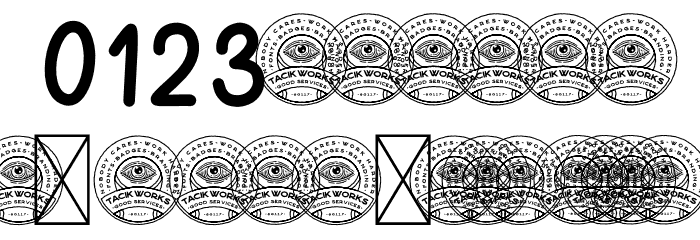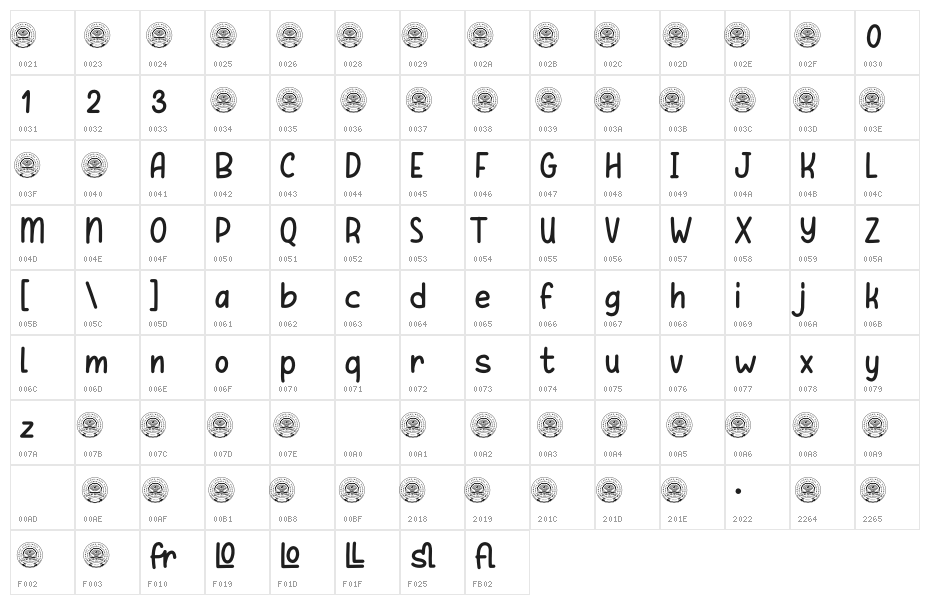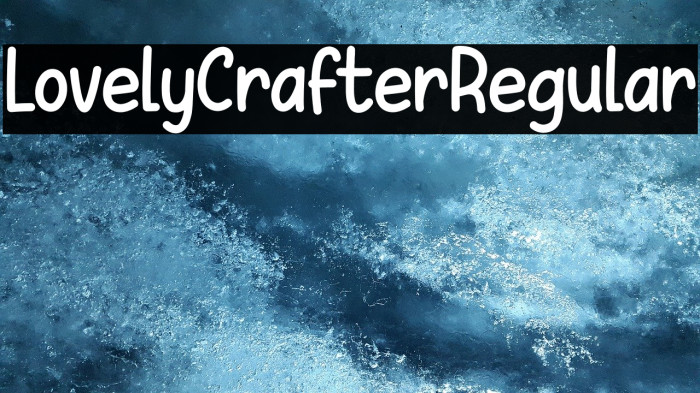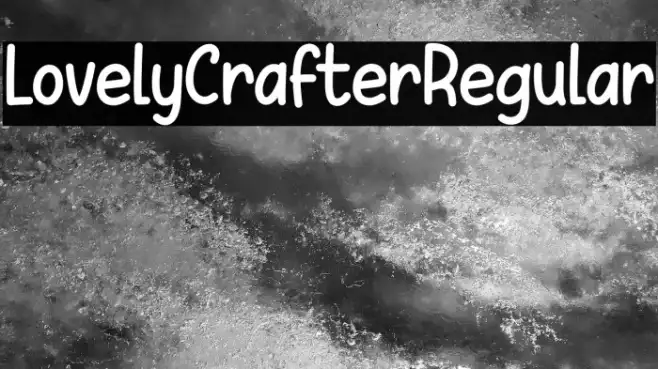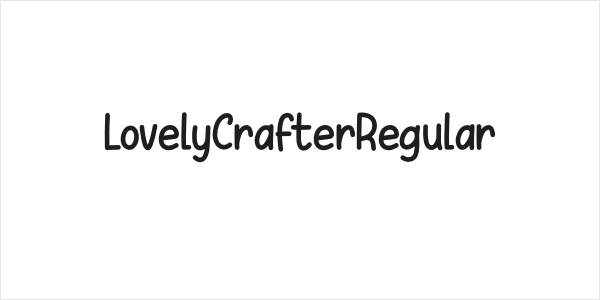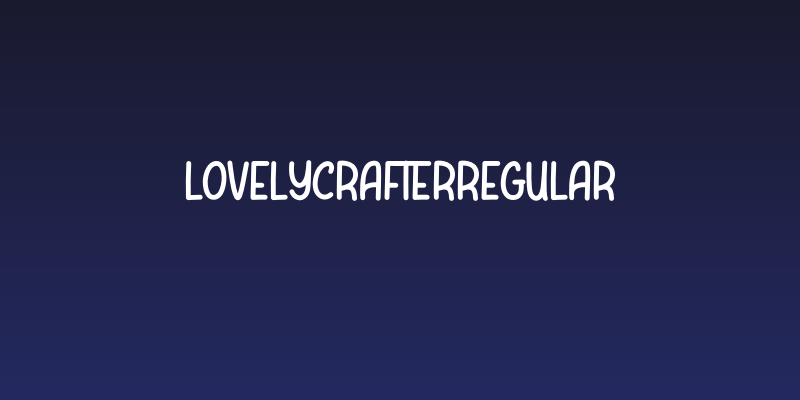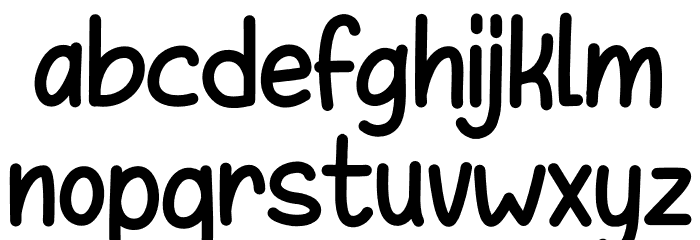
LovelyCrafterRegular Font
LovelyCrafterRegular Description
This font features a playful and rounded style, characterized by its smooth curves and friendly appearance. The letters are bold and slightly condensed, giving them a strong presence while maintaining a casual and approachable feel. The uppercase and lowercase letters are well-balanced, with consistent stroke widths that provide a harmonious look. The numbers are clear and easy to read, matching the overall style of the alphabet. This font's unique charm makes it suitable for a variety of creative projects, adding a touch of whimsy and warmth.
| Proposed Projects | Ideal for crafting projects, children's books, playful branding, and greeting cards. |